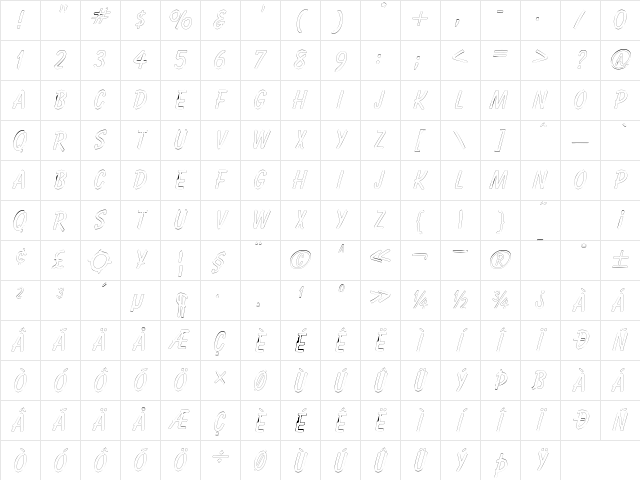
HotAirOutline Regular
Design Context for HotAirOutline
HotAirOutline is built around its visual character rather than neutral utility - its distinctive forms are designed to make an impression at display sizes.
Font Pairing: Pair with a clean neutral sans-serif for body copy to let HotAirOutline's character lead without overwhelming the composition.
Pro Tip: Use HotAirOutline exclusively at display sizes - it was designed to be seen, not read at length. Let a neutral companion handle body copy.